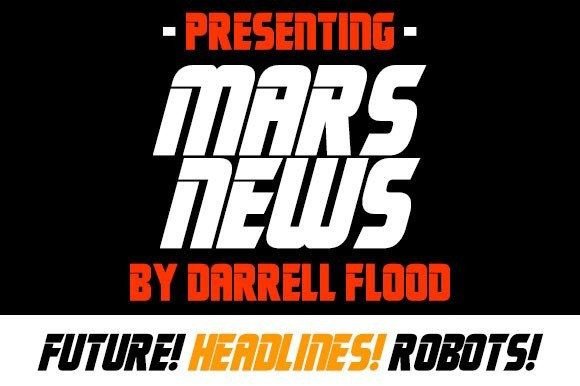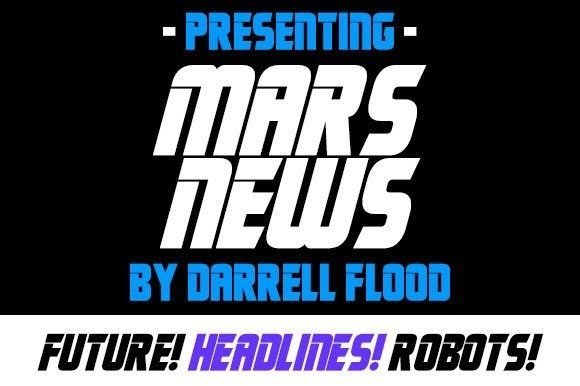
Introduction to Mars News Font
A futuristic display font in a slick, modern, super tall style.
Perfect for space adventures, alien encounters, and tech themes .